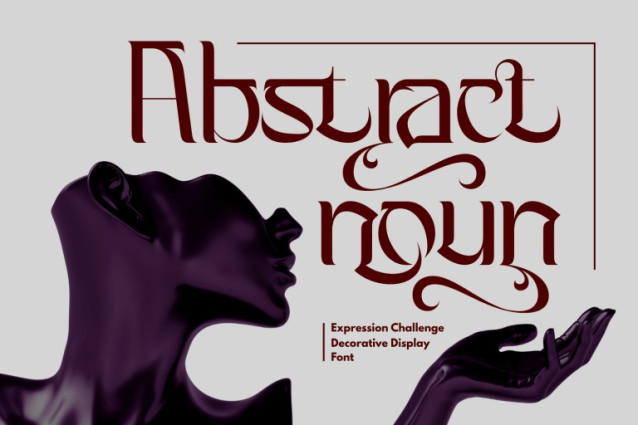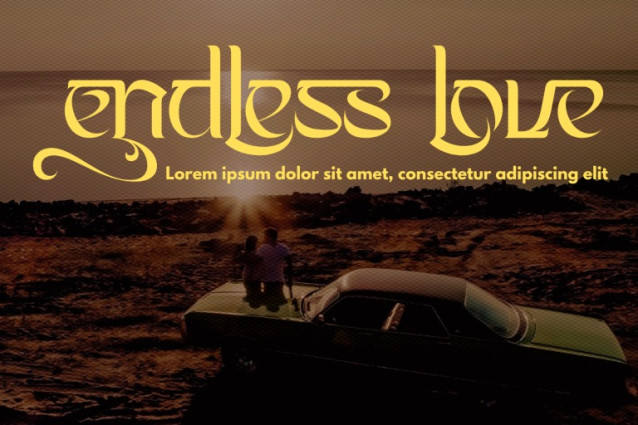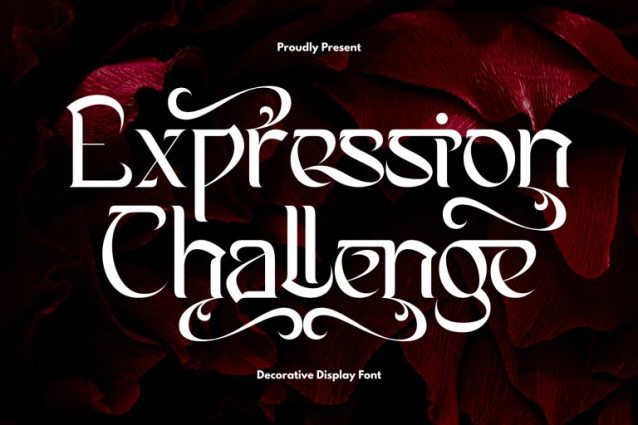
Expression Challenge Font
Expression Challenge – Elegant Serif Font is a sophisticated and ornamental display serif font that blends high-fashion elegance with a touch of vintage charm. Its sweeping swashes, graceful terminals, and refined ligatures bring a sense of movement and emotion to each letterform—making it a perfect choice for design projects that demand expressive beauty. From branding to editorials, logos to packaging, Expression Challenge is crafted to stand out with timeless elegance. Whether you’re designing wedding invitations or luxury cosmetics, this font adds a dramatic and artistic voice to your typography.
Uppercase & Lowercase Letters
100+ Beautiful Special Ligatures & Alternates
Flowing Strokes, Delicate Curves & High Contrast
Ideal for Logos, Editorials, Fashion, Beauty, Luxury Branding, and Invitations
🔤 About 100 ligatures combined with Stylistic Alternates Font: